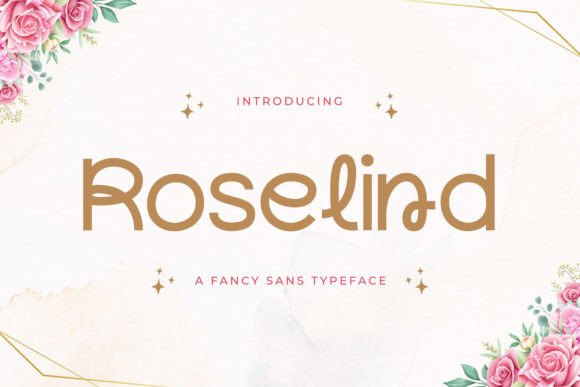
Roselind Font: A Fancy Contemporary Sans-Serif for Modern Designs
In the world of typography, fonts play a crucial role in conveying messages, expressing emotions, and creating visual identities. Among the numerous fonts available, Roselind Font stands out for its unique blend of elegance and approachability. This article will delve into the characteristics, uses, and benefits of Roselind Font, exploring why it has become a popular choice for designers and brands alike.
What is Roselind Font?
Roselind is a fancy, contemporary sans-serif font that boasts a casual charm, making it appear wonderfully down-to-earth, readable, and incredibly versatile. Its design combines the simplicity of sans-serif fonts with a distinctive flair, setting it apart from more traditional typefaces. This font is perfect for designers looking for a modern, yet approachable look that can enhance their visual projects.
Key Features of Roselind Font
- Contemporary Design: Roselind Font features a modern sans-serif design that fits well with current design trends.
- Casual Charm: Despite its modernity, the font exudes a warm, inviting feel that makes it suitable for a wide range of applications.
- Readability: The font is highly readable, even at smaller sizes, making it ideal for body text and headlines.
- Versatility: Roselind Font can be used in various contexts, from digital media to print, and from casual blogs to professional branding.
Uses of Roselind Font
Roselind Font’s versatility is one of its most appealing qualities. Here are some scenarios where this font truly shines:
- Headlines and Titles: Its fancy and contemporary look makes it perfect for headlines, titles, and slogans that need to grab attention.
- Branding and Logos: The unique charm of Roselind Font can help brands stand out and create a memorable visual identity.
- Digital Content: Whether it’s blog posts, social media graphics, or website content, Roselind Font enhances readability and visual appeal.
- Print Materials: From brochures and flyers to posters and business cards, this font can elevate the look of any print material.
Benefits of Using Roselind Font
Choosing Roselind Font for your design projects comes with several benefits:
- Enhanced Readability: The font’s design ensures that your content is easy to read, improving user experience.
- Unique Aesthetic: Roselind Font offers a distinctive look that can set your designs apart from the crowd.
- Flexibility: It can be used across various platforms and in different sizes without losing its appeal.
- Emotional Connection: The casual charm of the font can help create a warm and inviting atmosphere in your designs.
Tips for Using Roselind Font Effectively
To maximize the impact of Roselind Font in your designs, consider the following tips:
- Mix with Other Fonts: Pair Roselind Font with complementary fonts to create visual interest and hierarchy.
- Adjust Size and Color: Experiment with different sizes and colors to ensure the font aligns with your design’s mood and purpose.
- Consider Background: Ensure that the background doesn’t compete with the font; use contrasting colors for better visibility.
- Test Readability: Always test the font’s readability across different devices and mediums.
Roselind Font is a versatile and contemporary sans-serif font that offers a perfect blend of elegance and approachability. Its casual charm, readability, and versatility make it an excellent choice for a wide range of design projects. By understanding its features, uses, and benefits, designers can leverage Roselind Font to create visually appealing and effective designs that resonate with their audience.
Embracing Roselind Font in Your Design Projects
Incorporating Roselind Font into your design arsenal can open up new possibilities for creating engaging and memorable visual content. Whether you’re working on a branding project, digital content, or print materials, Roselind Font’s unique aesthetic and practical benefits make it a valuable resource. Explore its potential and discover how it can elevate your designs to new heights.